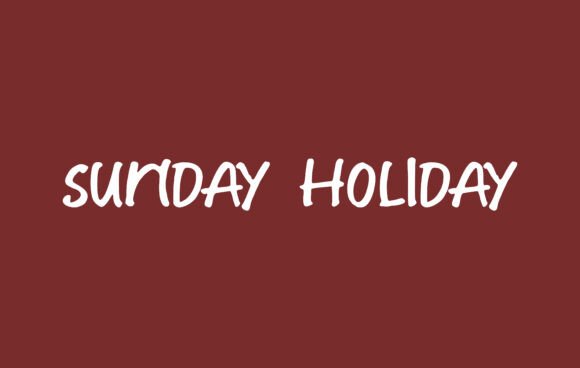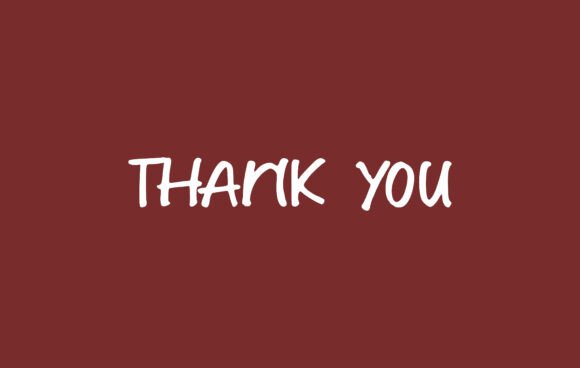
The Magic of Aurora Font: A Designer’s New Best Friend
I’ll never forget the time I was working on a wedding invitation project, and my client asked for a font that was “romantic, elegant, and playful.” I scoured the internet, tried out dozens of fonts, but nothing seemed quite right. That was until I stumbled upon Aurora Font. 💕
This beautiful, handwritten font has been a game-changer for me, and I’m excited to share it with you. In this article, we’ll dive into the world of Aurora Font, exploring its features, how to use it, and what makes it so special.
A Honest Review: The Good and the Great
So, what makes Aurora Font so amazing? Here are a few things I love:
• ✨ Authentic handwritten feel: Aurora Font has a genuine, hand-written quality that adds a touch of warmth to any design.
• ✅ Legibility: This font is easy to read, making it perfect for both title and body text.
• 💫 Romantic touch: The subtle flair and curves give Aurora Font a romantic feel that’s perfect for wedding invitations, Valentine’s Day cards, and more.
• 🎨 Versatility: Use it for magazine headlines, social media graphics, branding, and so much more.
Of course, no font is perfect, and there are a few small quirks to keep in mind:
• 🤔 Limited multilingual support: While Aurora Font supports many languages, it may not cover every language or character set.
• ⚠️ Some glyphs require manual adjustment: Depending on your design, you may need to tweak certain glyphs for optimal spacing and alignment.
The Story Behind Aurora Font
Aurora Font was designed by a talented typographer who wanted to create a font that captured the magic of a romantic sunrise. Inspired by the soft, golden light of dawn, this font is meant to evoke feelings of love, hope, and beauty.
Is Aurora Font suitable for body text? While Aurora Font is legible, it’s best suited for headlines, titles, and short paragraphs. For longer body text, you may want to choose a more traditional font.